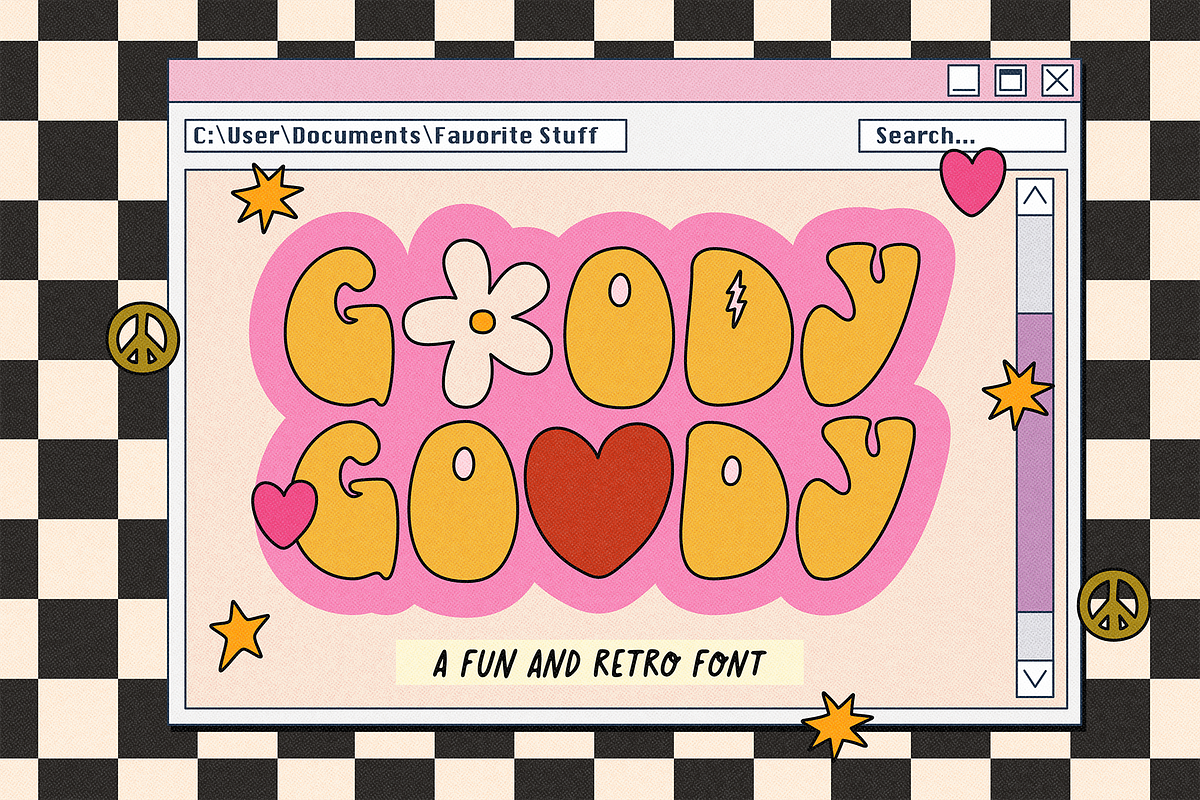
Goody-Goddy Fun Retro Font Free Download is a cheerful and nostalgic typeface that brings back the groovy vibes of the ’60s and ’70s. With its bubbly curves, playful personality, and vintage-inspired style, it’s perfect for posters, branding, t-shirts, social media posts, packaging, and anything that needs a blast of good vibes.
This font is all about fun and flair—each letter dances with personality, making your designs instantly feel lively and eye-catching. Whether you're creating a retro-themed event flyer or a colorful logo, Goody-Goddy adds charm and character that’s hard to ignore.
Designed for designers who don’t take life too seriously, this font is full of sunshine, smiles, and style.